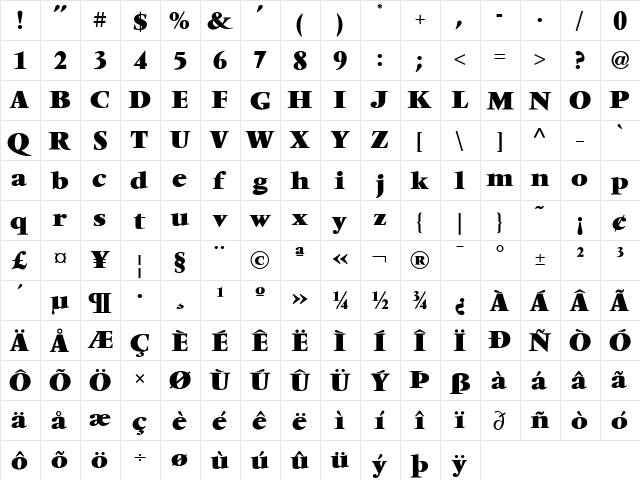
VendomeICG Black
Design Context for VendomeICG Typeface
VendomeICG is a composed and adaptable typeface that performs quietly and consistently across a wide range of design contexts.